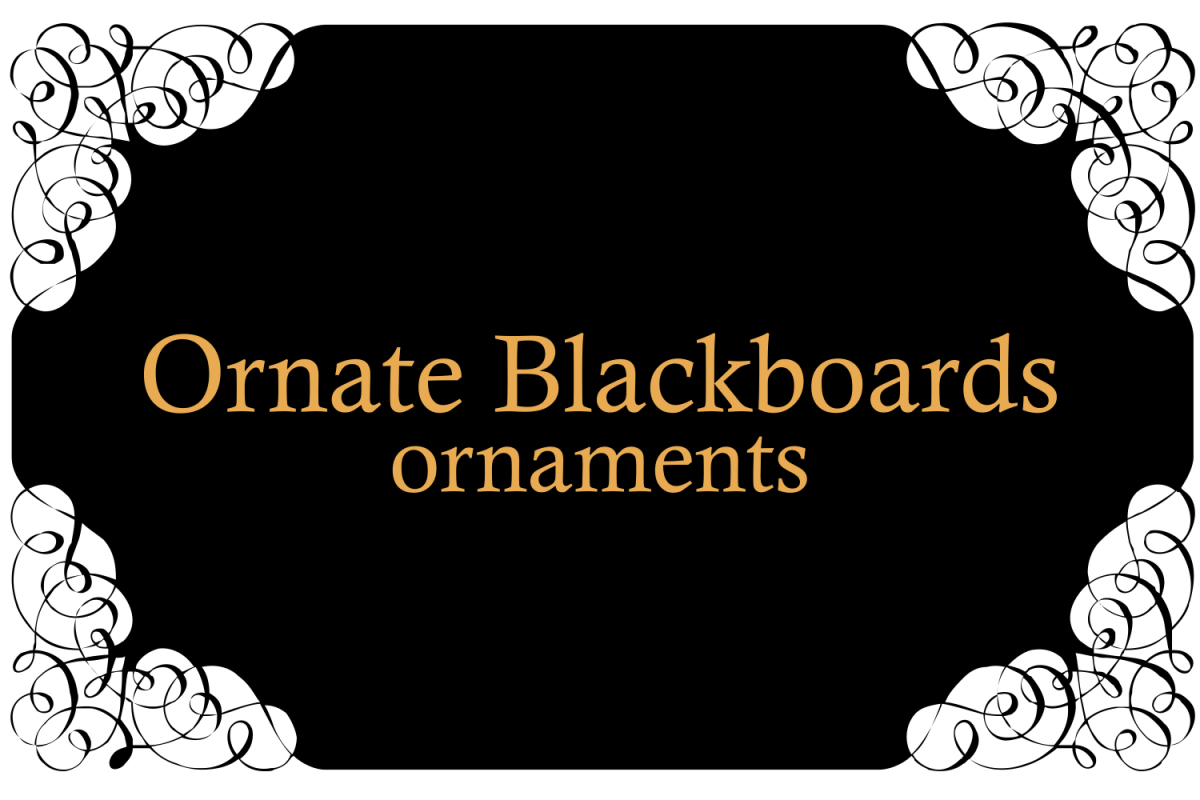
Ornate Blackboards Two
Ornate Blackboards Two is a beautiful collection of ornaments from Intellecta Design, excellent for use in works of art and editorial publications, like book covers, headpieces to sections of books, magazines, packaging works, and many other solutions. Good to use with roman versals, chiseled fonts and many other different kinds of typefaces. Avalilable too in a attractive two pack fonts : https://fontbundles.net/intellecta-design/31677-ornate-blackboards-pack